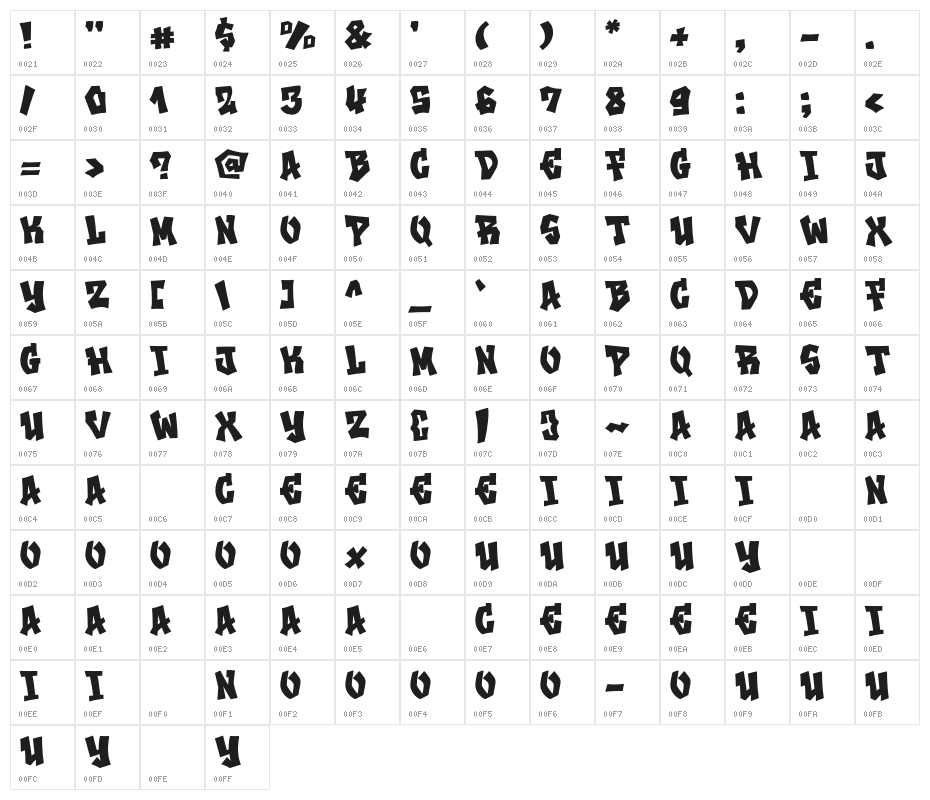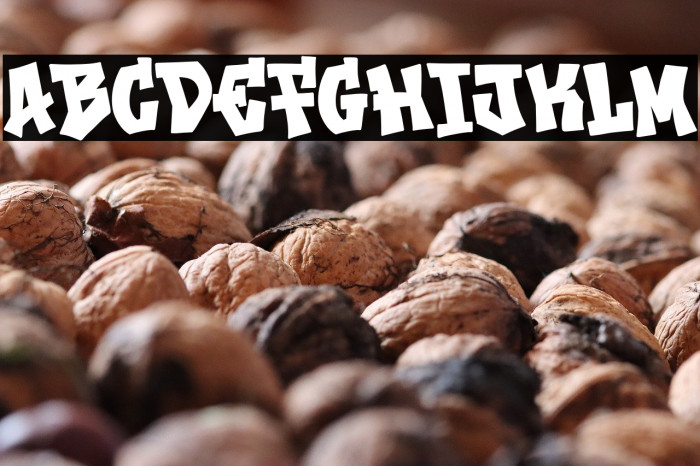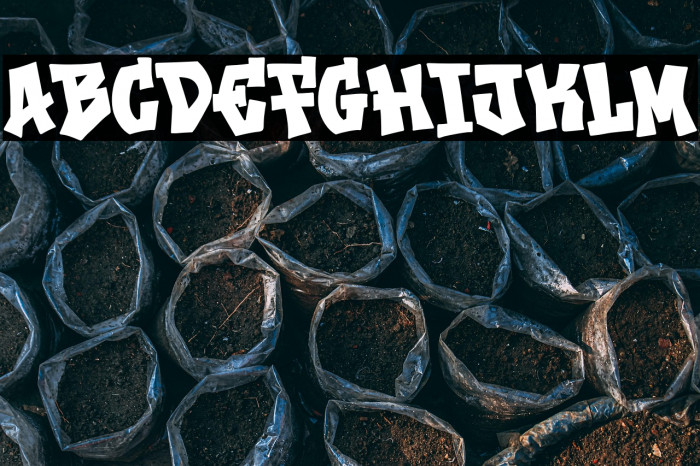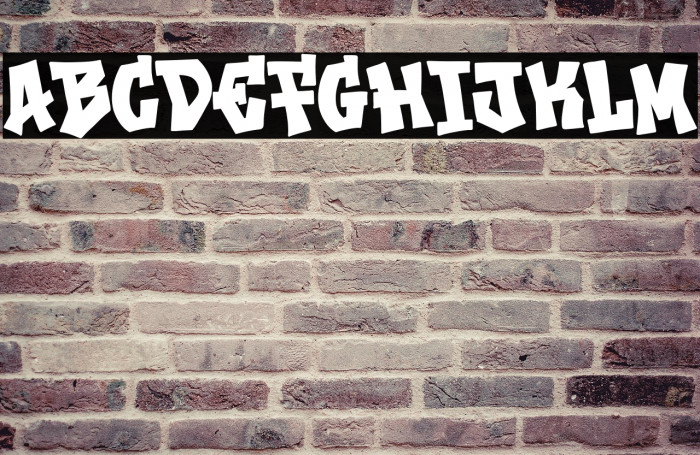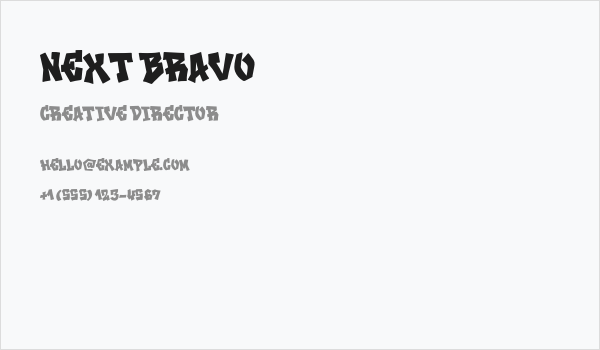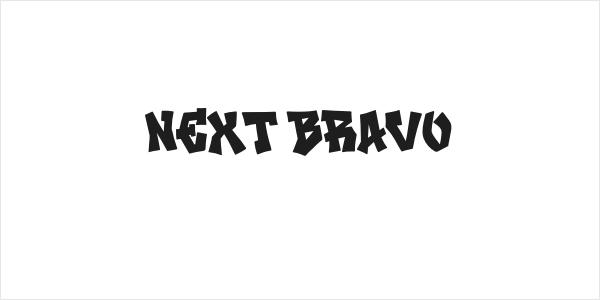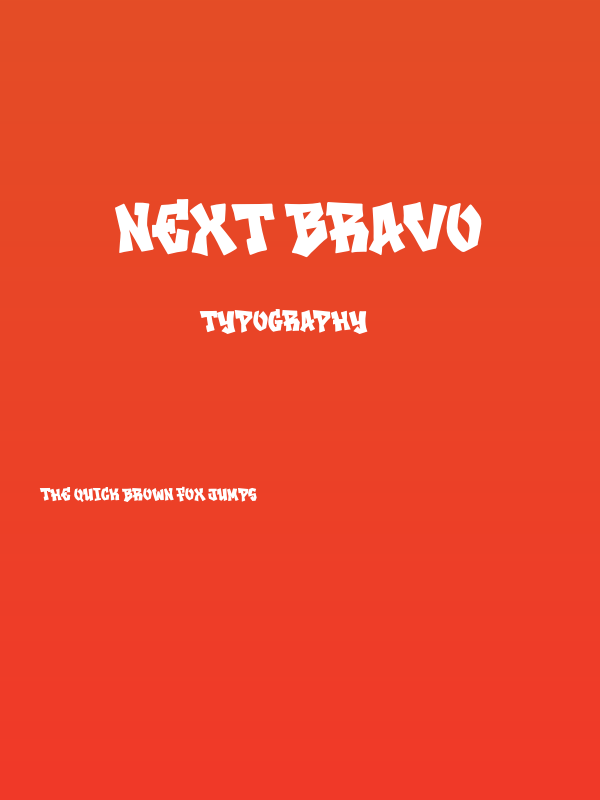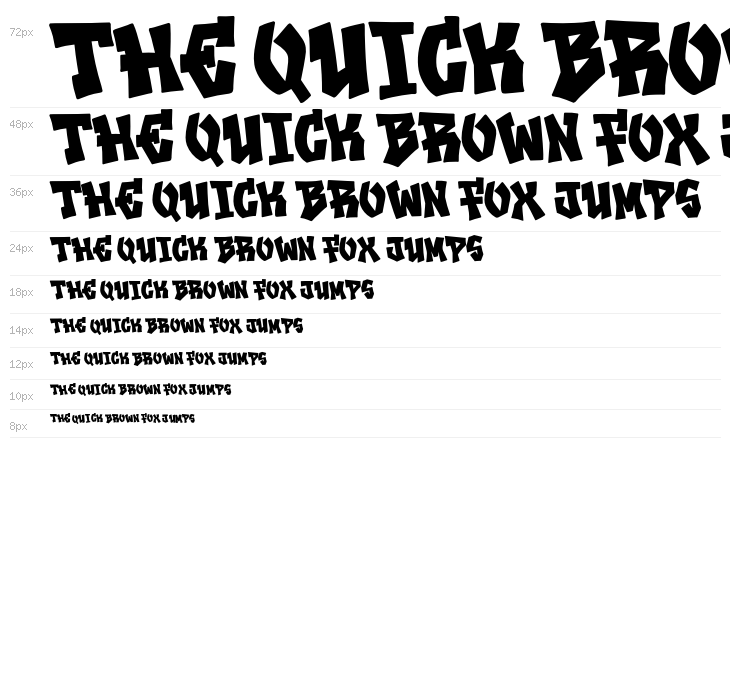
Next Bravo Font
Next Bravo Description
This font features a bold and dynamic style with a graffiti-inspired aesthetic. The characters are angular and irregular, giving them a rebellious and energetic feel. The uppercase and lowercase letters maintain a consistent style, with exaggerated serifs and sharp edges. Numbers and special characters follow the same bold and expressive design, making the font suitable for eye-catching displays. The overall appearance is striking and unconventional, perfect for projects that require a strong visual impact.
| Proposed Projects | Ideal for street art designs, urban-themed posters, music album covers, and edgy branding projects. |